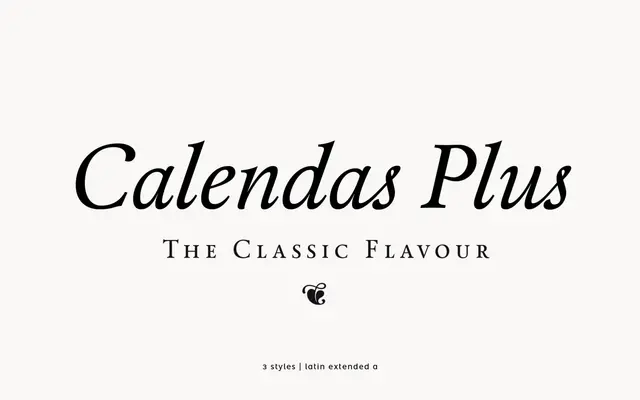
Calendas Plus
atipo foundry · Atipo · 2014
A transitional serif with calligraphic italic, small caps and swashes, suited to editorial, book and elegant identity work.
A transitional serif by atipo foundry, expanded as Calendas Plus with small caps, swashes and discretionary ligatures. Offered in Regular, Italic and Bold, the family carries oldstyle and lining figures, fractions and case-sensitive forms through OpenType. Sits in editorial, book and identity work where a quiet, slightly literary serif is wanted, with the swash italic available when display moments need more flourish.
A transitional serif with elegant proportions, modest contrast and a calligraphic italic. The Plus version expands the original Calendas with small caps, swashes and discretionary ligatures, sitting in the lineage of Caslon and Baskerville with a softer, contemporary touch.